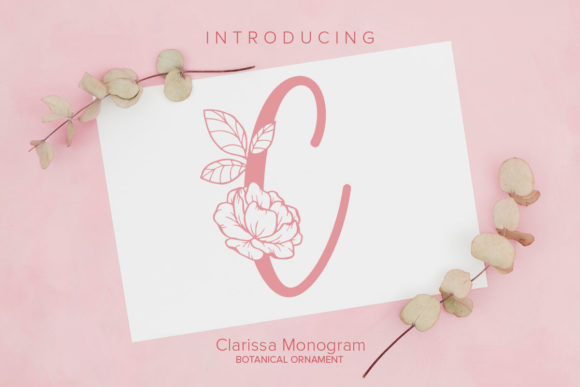
Immerse yourself in the enchanting world of Clarissa Monogram, a decorative font that will captivate your senses and transform your creations.
Indulge in its intricate swirls and elegant curves, evoking a touch of whimsy and charm. Let your imagination soar as you craft exquisite invitations adorned with the allure of a bygone era, transport your stationery to a realm of sophistication, magnetize your social media with captivating posts, and spread joy through heartfelt greeting cards.
With Clarissa Monogram, you hold the key to unlocking a world of artistic possibilities. Its delicate strokes will dance across your designs, leaving an unforgettable mark on every piece you create. Delight in the attention to detail, as each character whispers a tale of elegance and refinement.
Embrace the allure of Clarissa Monogram and embark on a creative journey where your imagination knows no bounds. From heartfelt sentiments to captivating social media posts, let this enchanting font weave a tapestry of beauty that will inspire awe and admiration.